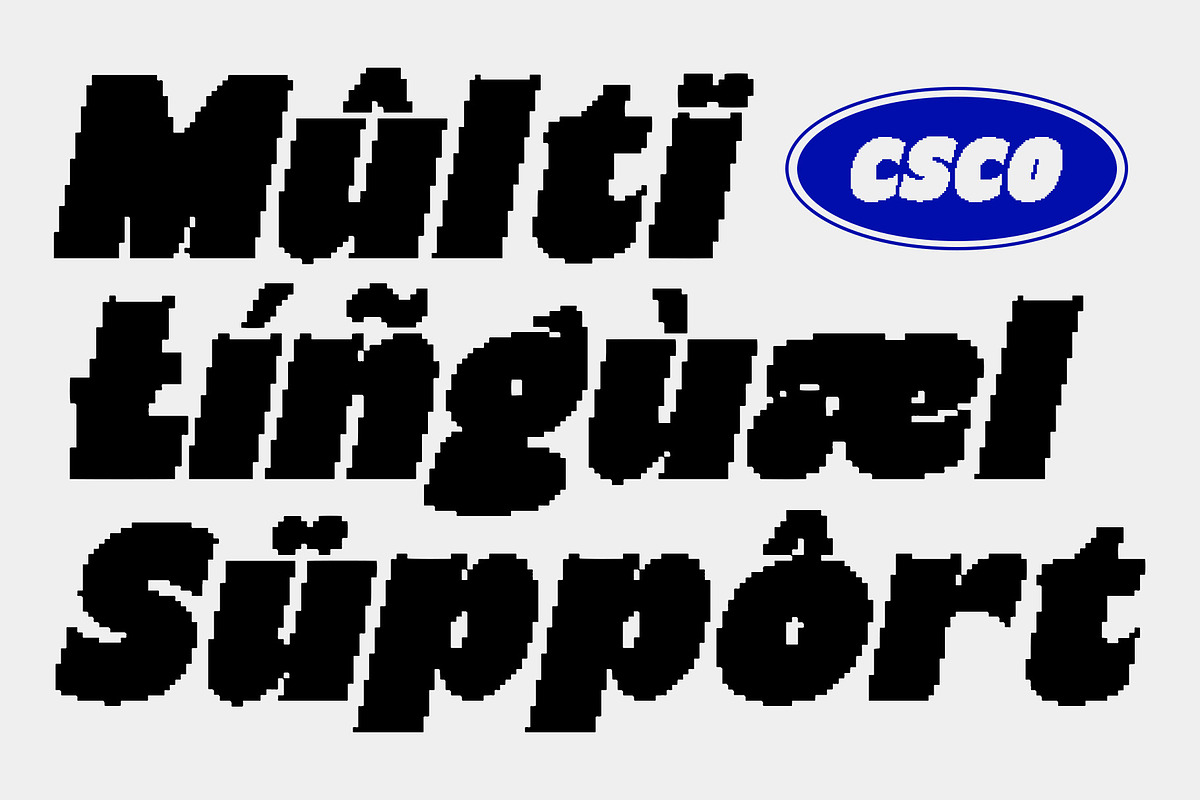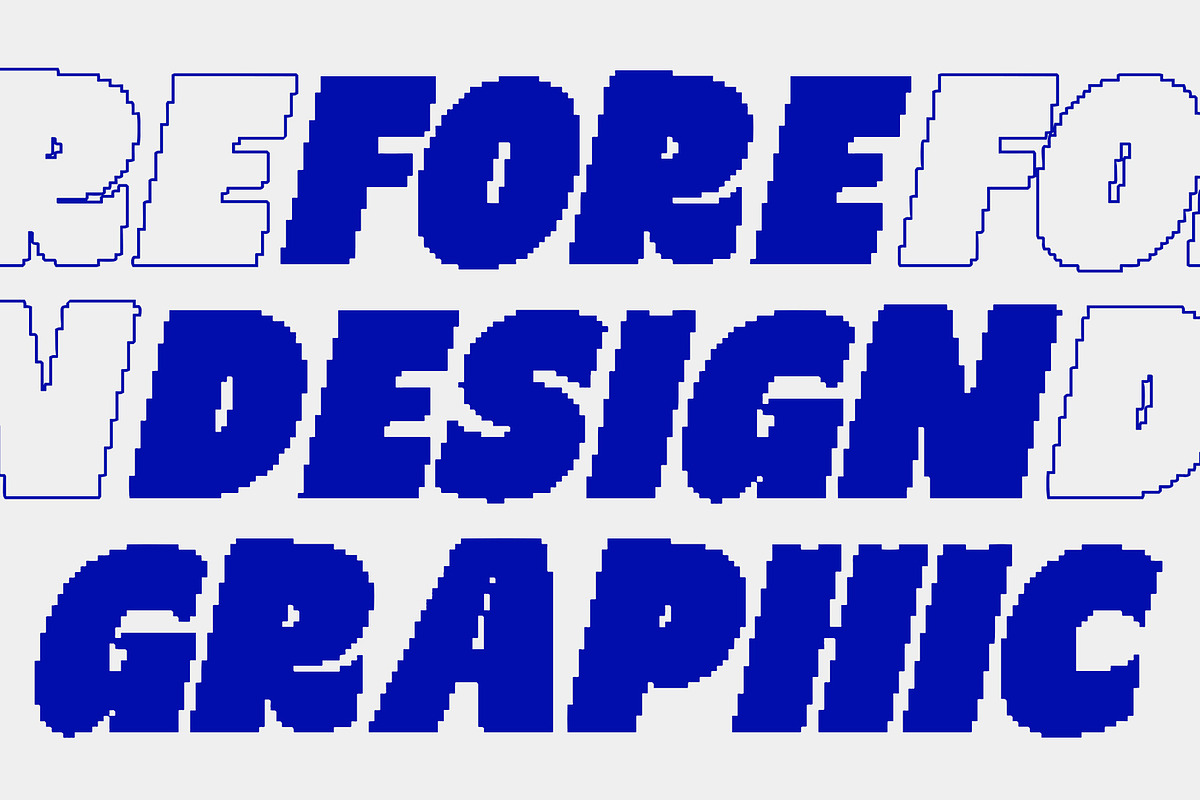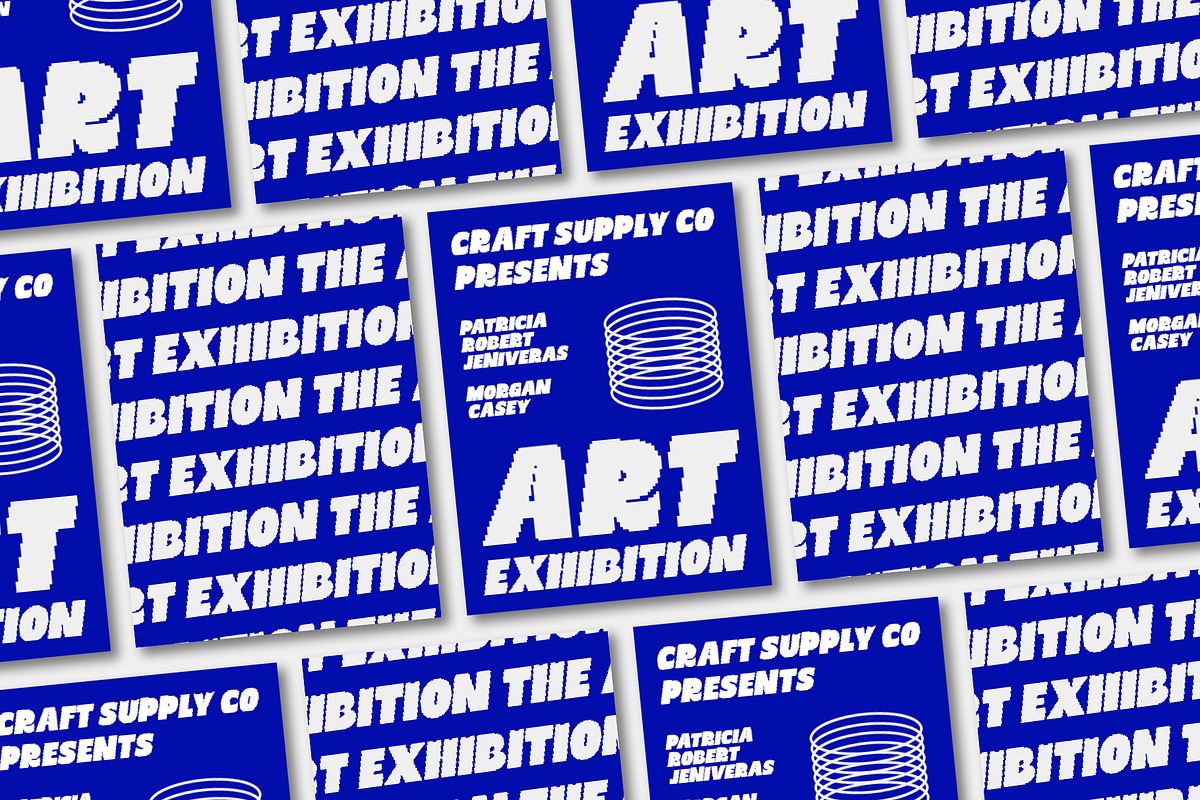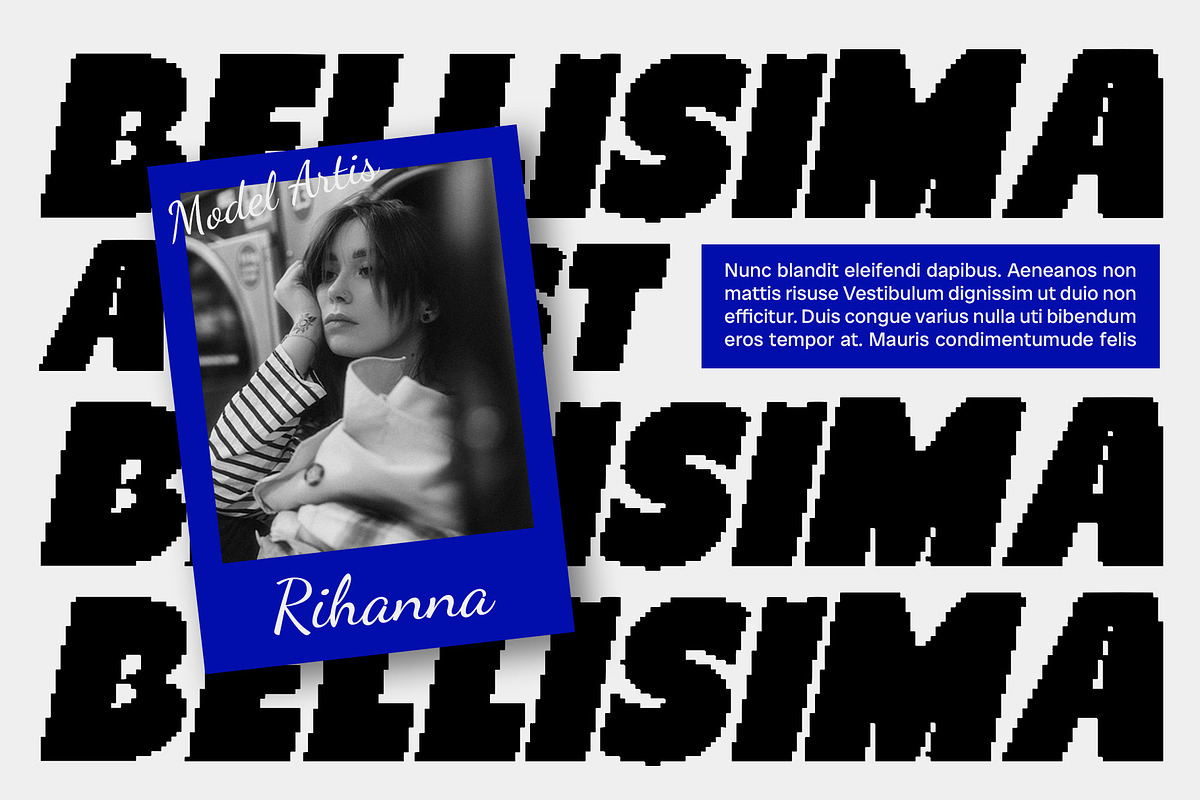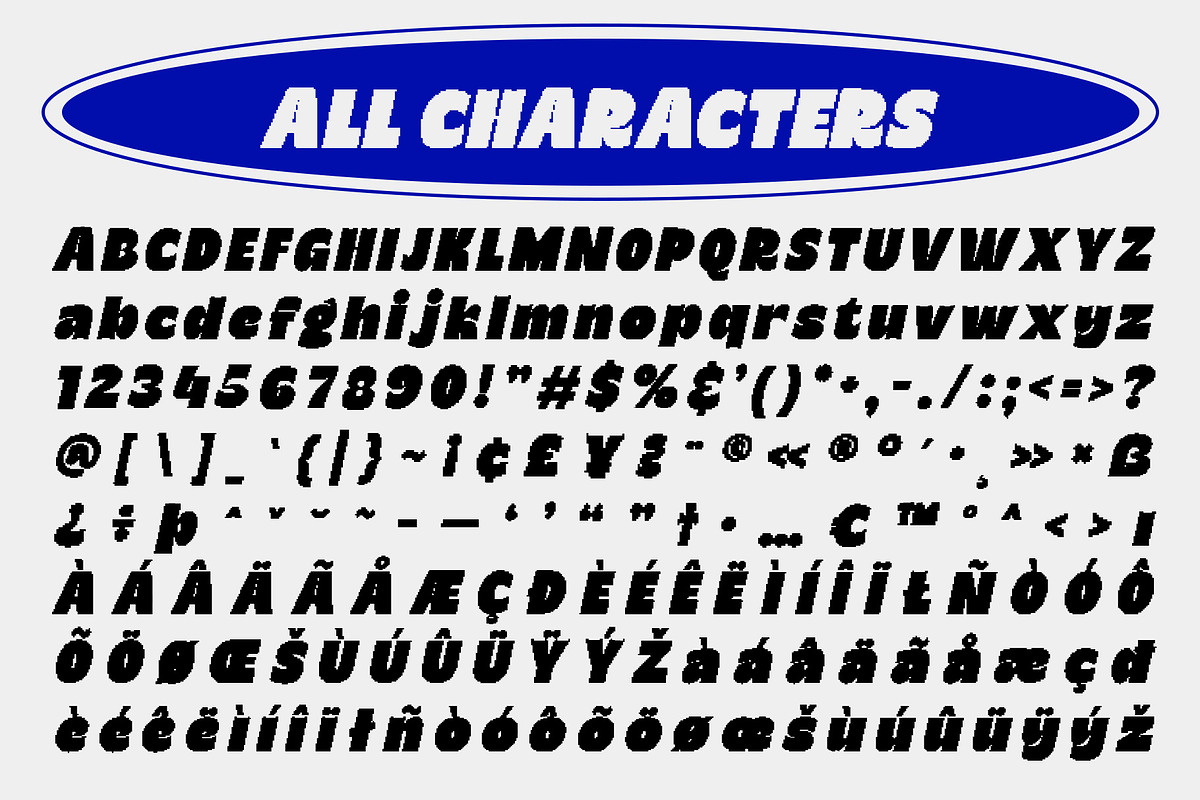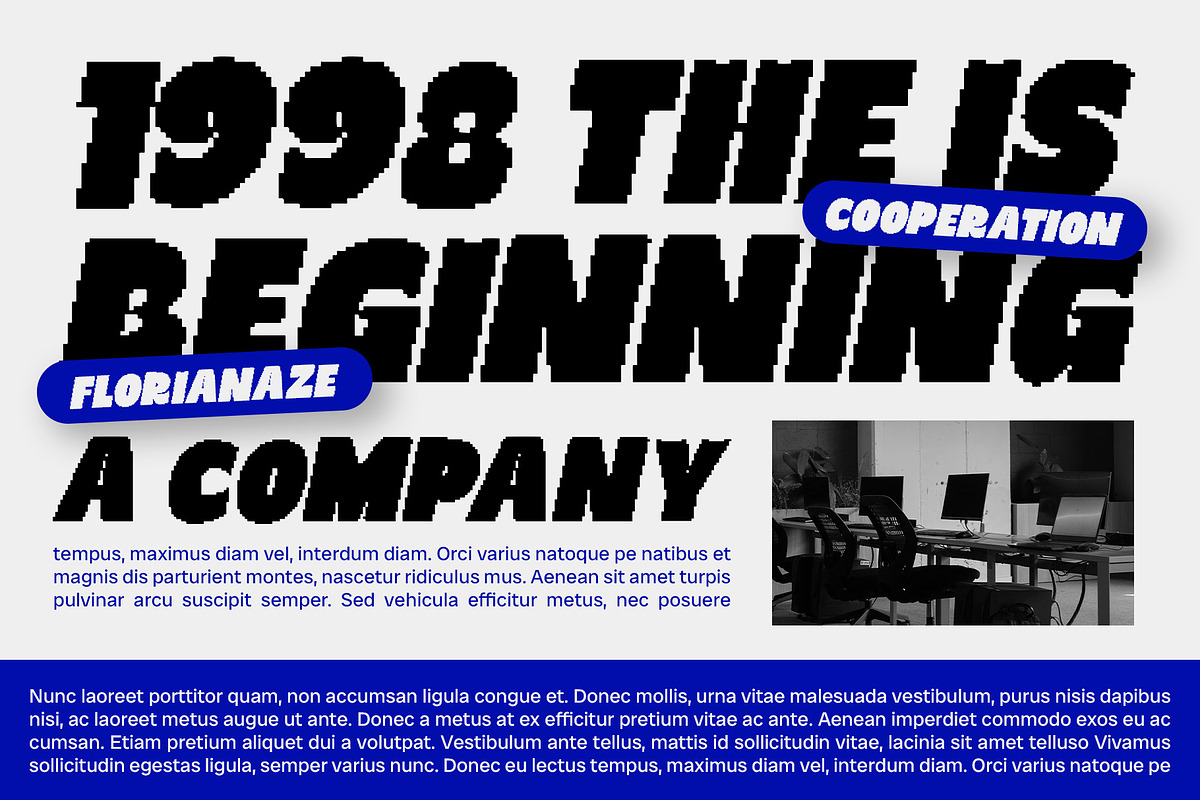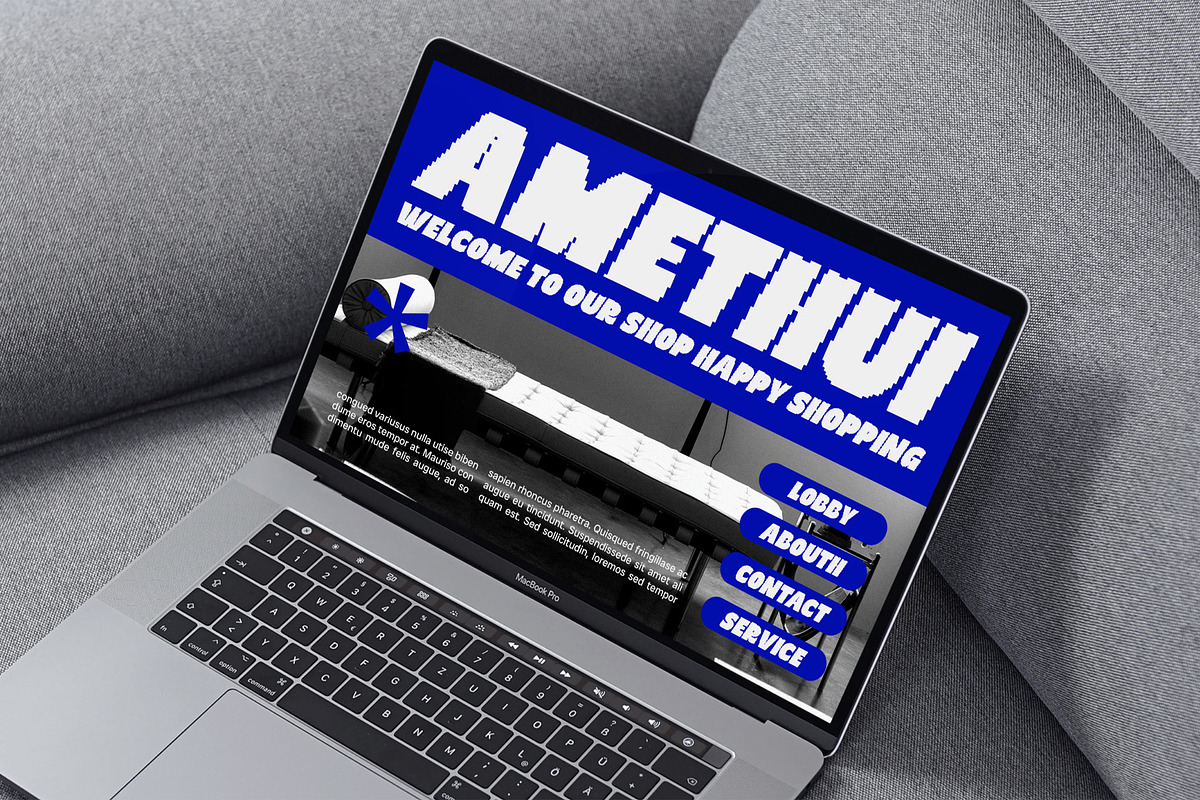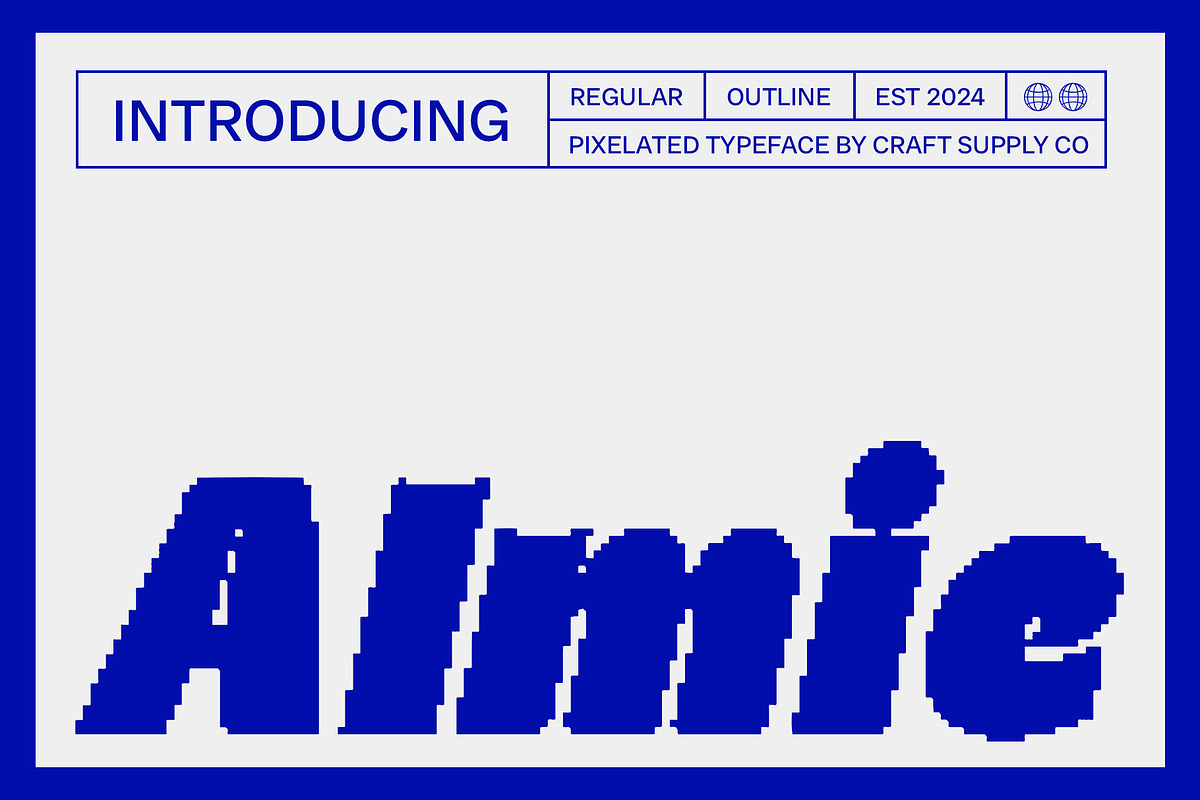
Almie Pixel
Almie Pixel: Bold Sans-Serif Font with Pixelated Effect
Modern and Playful Sans-Serif Font
Almie Pixel is a bold sans-serif font that embodies a funky vibe with a unique pixelated effect, making it an excellent choice for designs seeking a modern and playful appearance. This font combines clean, bold lines with innovative pixel details, creating a fresh and dynamic aesthetic.
Clean and Bold Design
The clean and bold lines of Almie Pixel ensure readability and visual impact across various design applications. Whether used for posters, branding, or digital designs, this font maintains clarity while adding a playful twist with its pixelated effect.
Fresh and Innovative Aesthetic
The pixelated effect in Almie Pixel introduces a fresh and innovative touch to its bold sans-serif structure. This feature not only enhances visual interest but also makes your designs stand out with a striking and energetic impression.
Ideal for Creative Projects
Perfect for projects that aim to grab attention and highlight creativity, Almie Pixel excels in creating impactful visual elements. Its modern appearance and playful vibe make it suitable for a wide range of applications, from digital interfaces to promotional materials.
Elevate Your Designs with Almie Pixel
Choose Almie Pixel to infuse your designs with a bold and modern sans-serif font that combines clean aesthetics with a playful pixelated twist. Whether you’re creating posters, branding, or digital artwork, this font ensures your designs make a memorable statement with creativity and style.